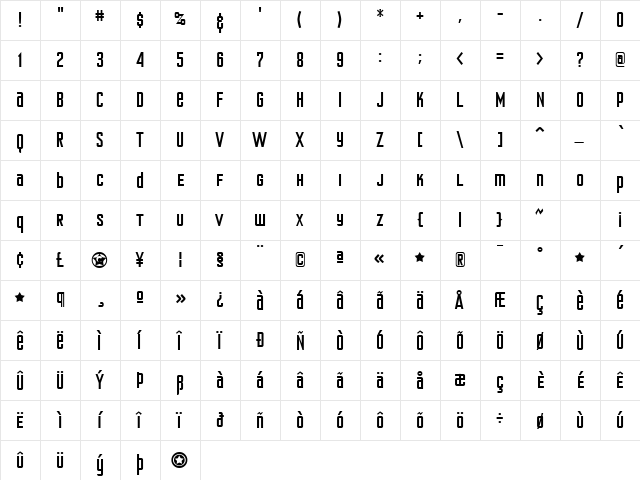
NicotineJazz Regular
Design Context for NicotineJazz Typeface
NicotineJazz is a composed and adaptable typeface that performs quietly and consistently across a wide range of design contexts.